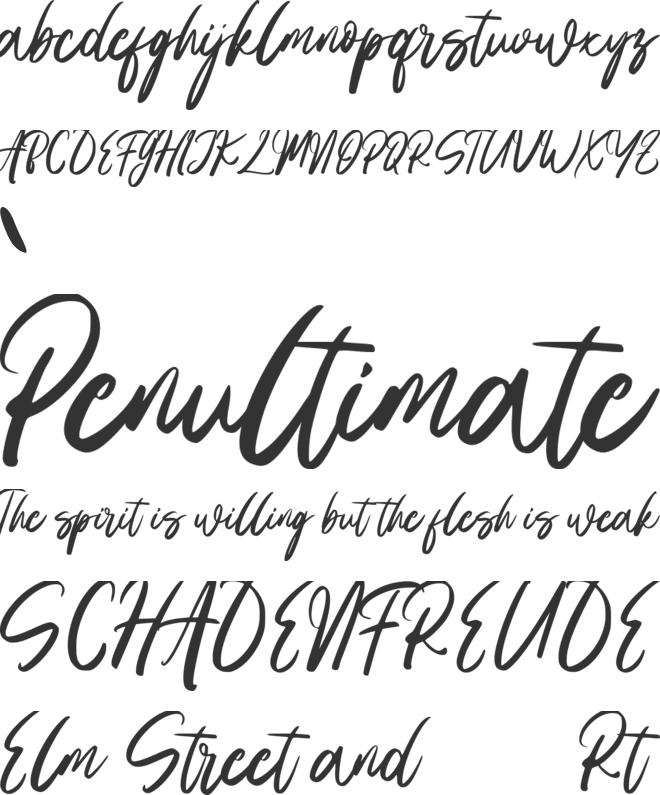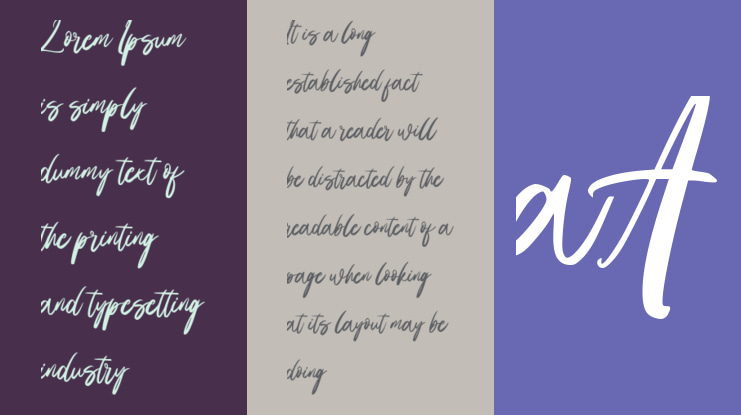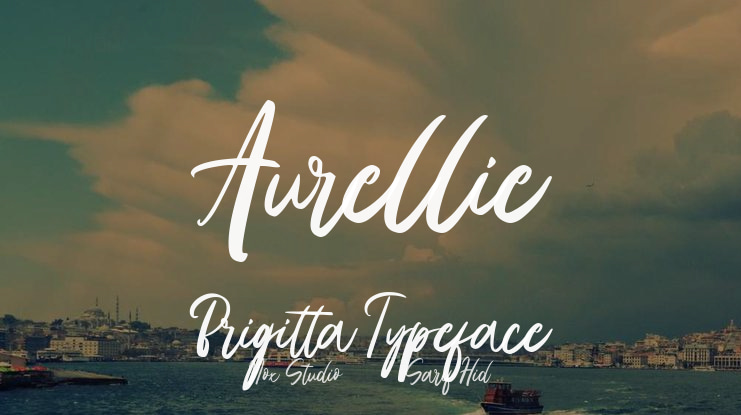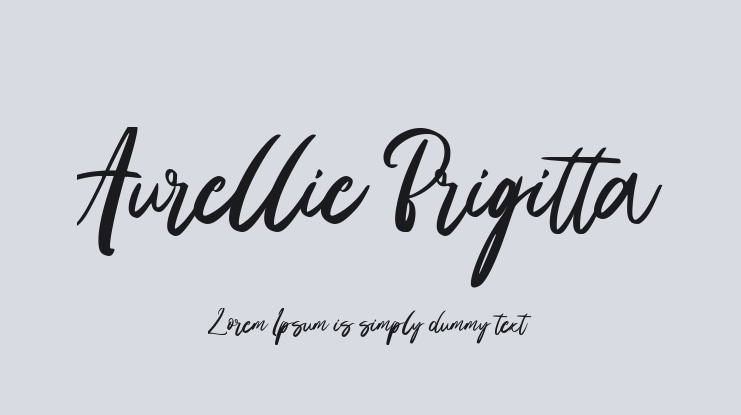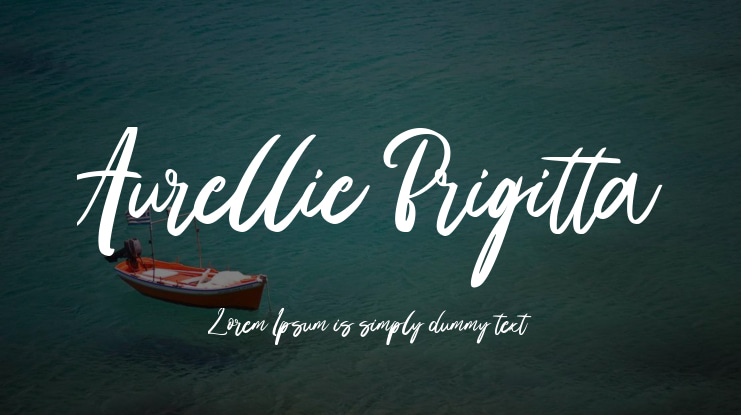
Aurellie Brigitta Font
Nox Studio 2024 ( Sarif Hidayat)
Enhance your event designs with the captivating charm of Aurellie Brigitta, a stunning script font with a distinctive flair. This carefully crafted, hand-drawn typography exudes a tangible authenticity, creating an inviting and familiar atmosphere. Perfectly suited to infuse your Christmas and New Year’s design projects with an artisanal touch, Aurellie Brigitta embodies both elegance and simplicity. Beyond seasonal creativity, it can effortlessly enrich any task, adding warmth and playful charm to your artistic endeavors.
Aurellie Brigitta font preview